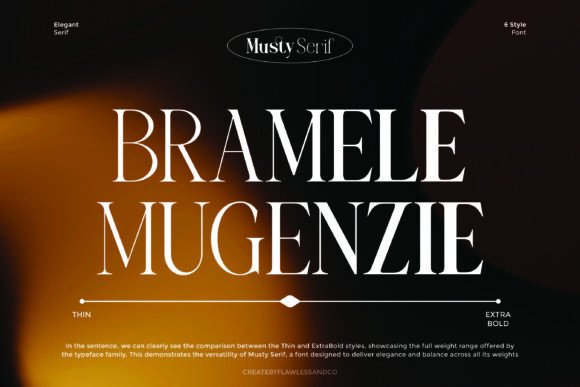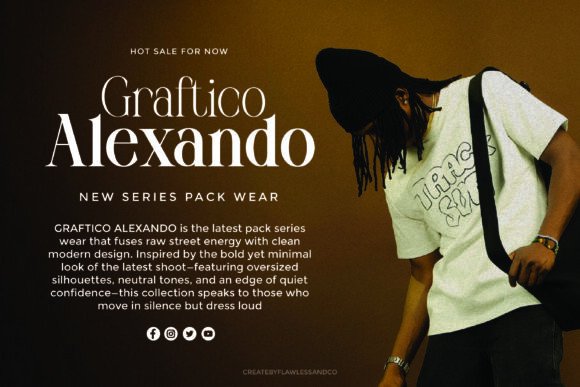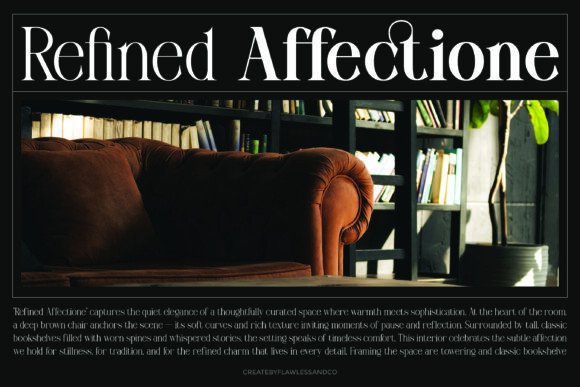
Introduction to Mustyserif Font
Have you ever been browsing through a beautifully designed magazine, and suddenly, a single font catches your eye? The curves, the proportions, the way it flows – it’s like a work of art in itself. For many designers, that’s the moment when a font becomes more than just a design element, it becomes a game-changer. And for those who’ve experienced the magic of the right font, the search for that perfect design resource never ends.
That’s where the Mustyserif Font comes in – a high-quality typeface family that’s about to revolutionize the way you approach your creative projects. With its elegant, timeless charm and six refined styles, this font is the perfect choice for any high-end design project, from editorial layouts to corporate stationery.
Whether you’re looking for a free download or a premium font to elevate your designs, the Mustyserif Font is an essential addition to any designer’s toolkit. Its transparent background and refined curves make it a versatile design resource that’s sure to impress, and its high-quality design ensures that your creative projects will stand out from the crowd.
Key Features of Mustyserif Font
- Unique Mustyserif Font style with a blend of vintage and modern elements, ideal for creative projects.
- Perfect for use in creative projects, including logos, typography, and editorial content, where a distinctive and elegant font is required.
- Mustyserif Font is a unique design element that can add a touch of sophistication and refinement to any project, making it an excellent addition to any design resource library.
Honest Review: Mustyserif Font
I recently had the chance to dive into the Mustyserif Font and I must say, it’s a hidden gem. As a designer, I’m always on the lookout for high-quality design resources that can elevate my creative project. The Mustyserif Font delivers.
- ✨ Its elegant serif design makes it perfect for long-form content, such as novels or academic papers.
- ⚠️ The font may not be ideal for use on a transparent background, as the texture of the font may show through.
- ⚠️ Some users may find the font’s width a bit too large for certain design applications.
Overall, I’m thoroughly impressed with the Mustyserif Font. Its unique design and high quality make it a valuable addition to any designer’s toolkit. If you’re looking for a reliable design resource for your next creative project, I highly recommend giving it a try.
Use the Mustyserif Font on a transparent background to create a subtle and elegant design. Experiment with different font sizes and styles to add visual interest to your creative project.
Common Use Cases for the Mustyserif Font
The Mustyserif Font is ideal for creating high-quality designs for print and digital media. Use it for invitations, business cards, brochures, and other marketing materials. The font is also suitable for creative projects such as book covers, magazine articles, and social media graphics.